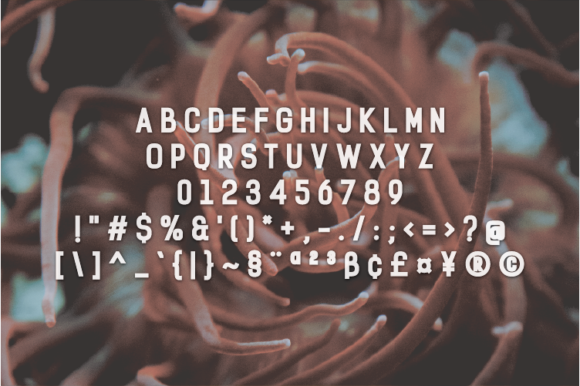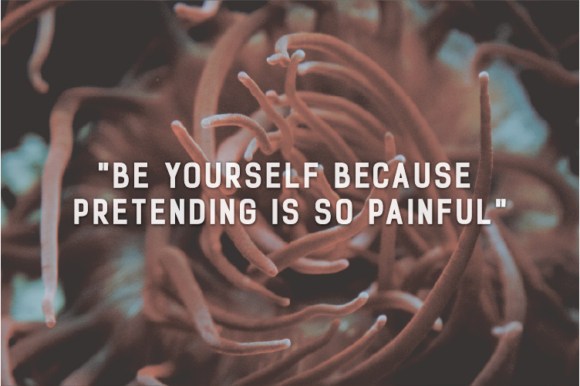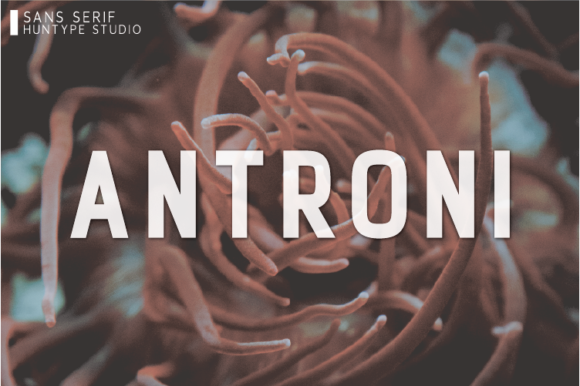
Introducing Antroni Font: The Bold and Neat Sans Serif for Creative Projects
In the world of typography, fonts play a crucial role in making or breaking a design. A well-chosen font can elevate your creative project, making it stand out from the crowd. If you’re a designer, crafter, or simply someone who loves to dabble in creative endeavors, you’re in luck! Today, we’re excited to introduce you to Antroni Font, a bold and neat sans serif font that’s sure to become a staple in your design toolkit.
What is Antroni Font?
Antroni Font is a modern sans serif font that’s designed to be versatile and highly adaptable. Its clean lines, precise curves, and bold strokes make it perfect for a wide range of projects, from branding and advertising to crafting and DIY tutorials. Whether you’re creating a logo, a poster, or a social media graphic, Antroni Font is sure to make your design pop.
Key Features of Antroni Font
So, what makes Antroni Font so special? Here are just a few of its key features:
- Bold and Neat Design: Antroni Font boasts a bold and neat design that’s perfect for making a statement. Its clean lines and precise curves ensure that your text is always legible, even at smaller sizes.
- Sans Serif Style: The sans serif style of Antroni Font makes it perfect for modern designs that require a clean and minimalist look.
- Highly Adaptable: Antroni Font can be used in a wide range of projects, from digital designs to print materials.
- Easy to Read: Despite its bold design, Antroni Font is incredibly easy to read, making it perfect for body text and headings.
How to Use Antroni Font in Your Creative Projects
Now that we’ve covered the basics of Antroni Font, let’s talk about how you can use it in your creative projects. Here are a few ideas to get you started:
- Branding and Advertising: Use Antroni Font to create bold and eye-catching logos, posters, and social media graphics that showcase your brand’s personality.
- Crafting and DIY Tutorials: Add a touch of modern style to your crafting and DIY tutorials with Antroni Font. Use it to create titles, headings, and body text that’s easy to read and understand.
- Digital Designs: Antroni Font is perfect for digital designs, including website headers, email newsletters, and social media graphics.
Why Choose Antroni Font?
With so many fonts to choose from, why should you choose Antroni Font? Here are just a few reasons:
- Unique Design: Antroni Font has a unique design that’s sure to make your projects stand out from the crowd.
- Versatility: Antroni Font can be used in a wide range of projects, making it a great addition to your design toolkit.
- Easy to Use: Antroni Font is incredibly easy to use, even for those who are new to design.
In conclusion, Antroni Font is a bold and neat sans serif font that’s perfect for creative projects. Its clean design, precise curves, and bold strokes make it highly adaptable and easy to read. Whether you’re a designer, crafter, or simply someone who loves to dabble in creative endeavors, Antroni Font is sure to become a staple in your design toolkit. So why wait? Download Antroni Font today and start creating stunning designs that showcase your creativity!